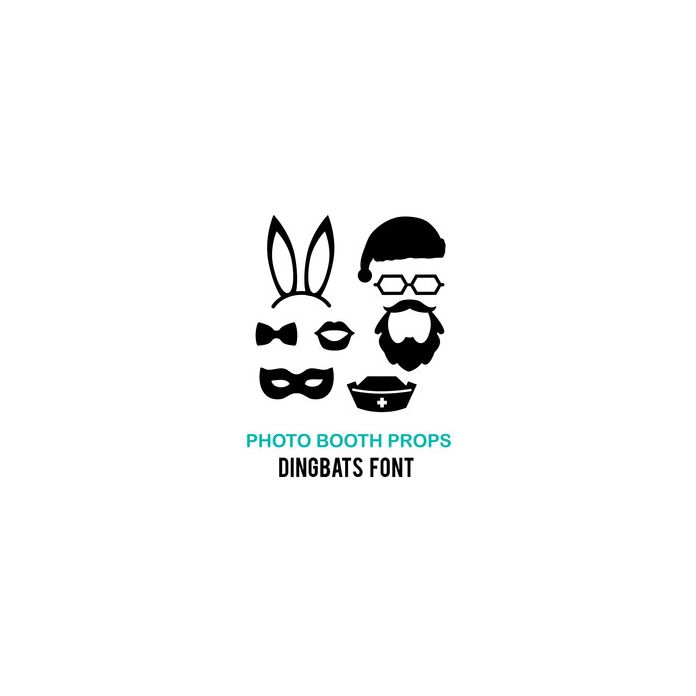
This .ttf dingbats font includes 26 unique photo booth designs to cut out and use at your next party or event. Each design is repeated in both uppercase and lowercase.